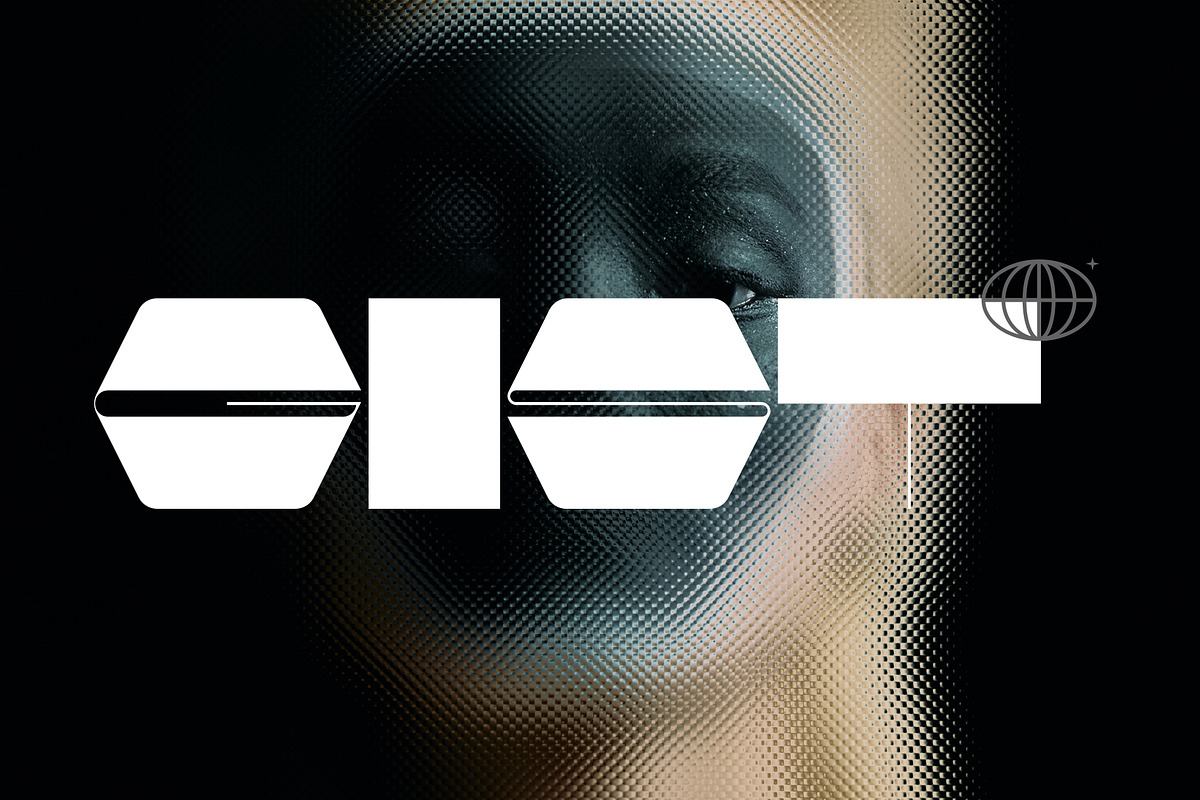
Make a sharp and modern impression with the Srg - Gist Display Font Free Download — a sleek, clean, and bold typeface designed to turn heads. With its minimalistic approach and geometric structure, this font is ideal for digital branding, UI/UX design, tech startups, posters, and futuristic layouts.
Gist Display stands out with its crisp lines and dynamic spacing, delivering readability without losing its visual punch. Whether you're building a modern logo, designing app interfaces, or crafting bold magazine headers, this font brings a contemporary edge that demands attention.